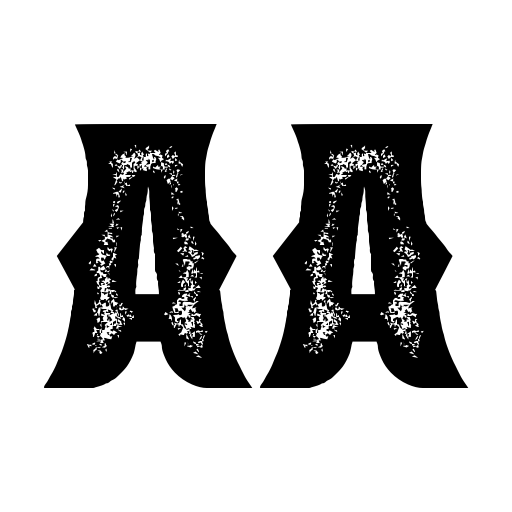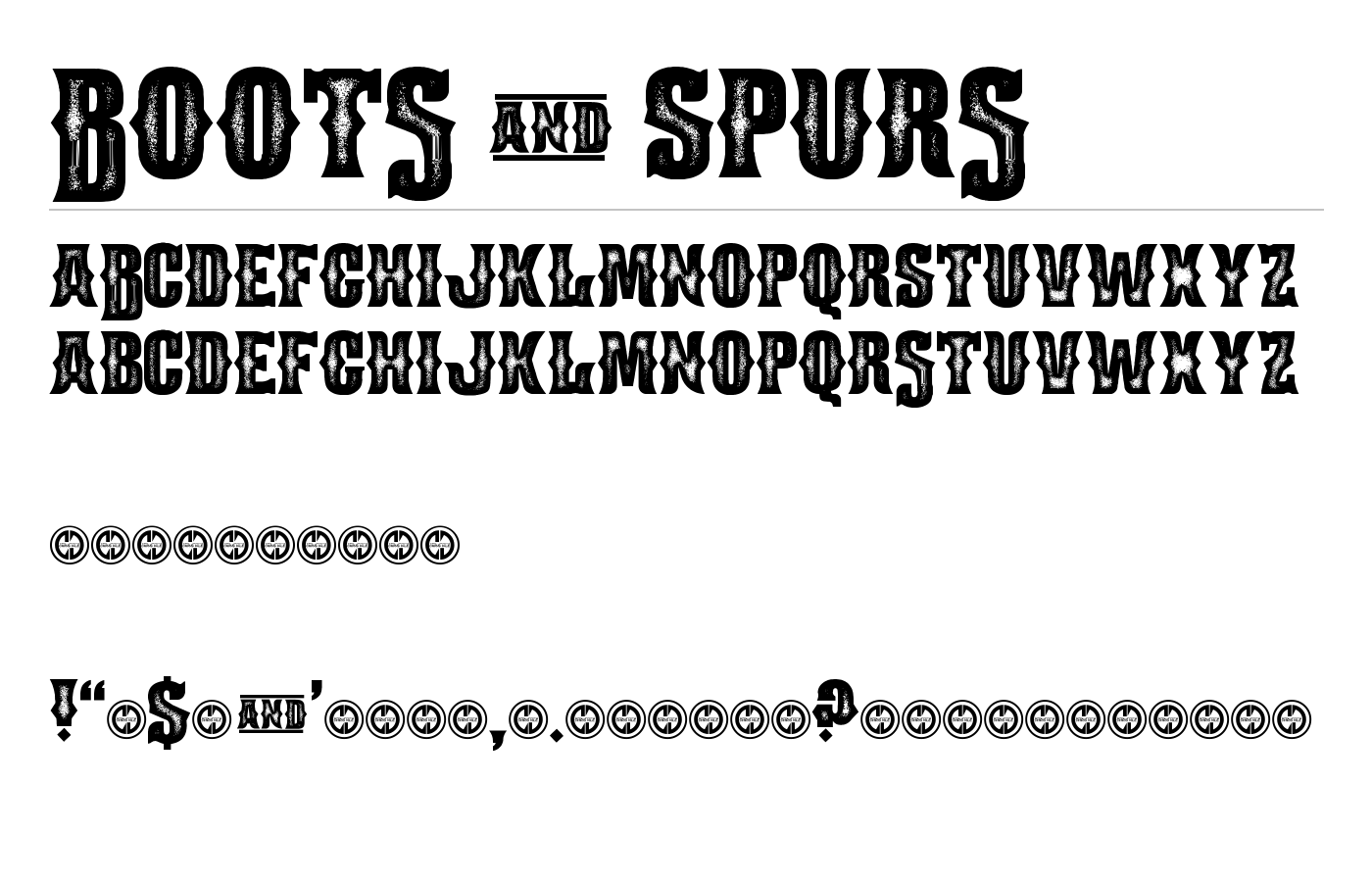
Boots & Spurs is a bold, decorative slab serif font with a strong vintage Western aesthetic. Its thick, blocky letters feature sharp serifs and a distressed texture, giving it a rugged and authentic feel perfect for evoking a rustic, cowboy-inspired style. This font works best for headlines, logos, and posters where a bold, eye-catching statement with a nostalgic frontier vibe is desired.
Boots & Spurs Font
About Boots & Spurs Font
| Designer | Chris Vile |